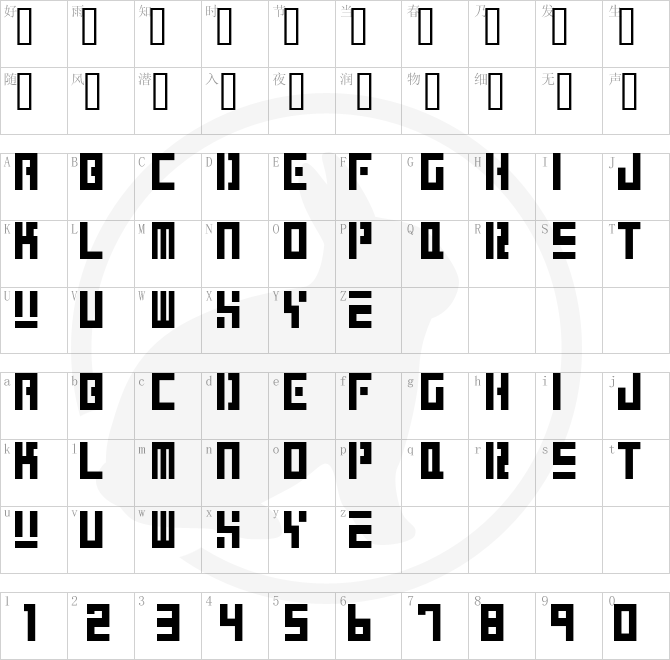
- Font Name:I2koukaku
I2koukaku-e.ttf is a very beautiful artistic font, I2koukaku-e.ttf is widely used in the design and printing of various books and pictures,I2koukaku-e.ttf has a strong visual impact,I2koukaku-e.ttf is a commonly used font in newspapers, magazines and books, and is used in posters, e-commerce Poster design, store design, logo design, font design and other fields.I2koukaku-e.